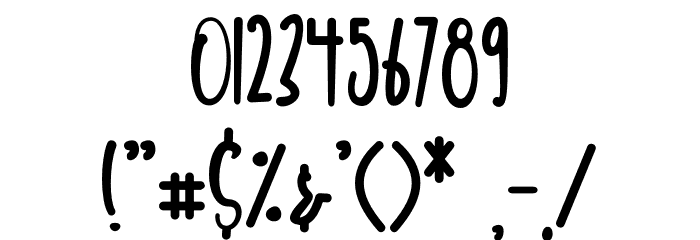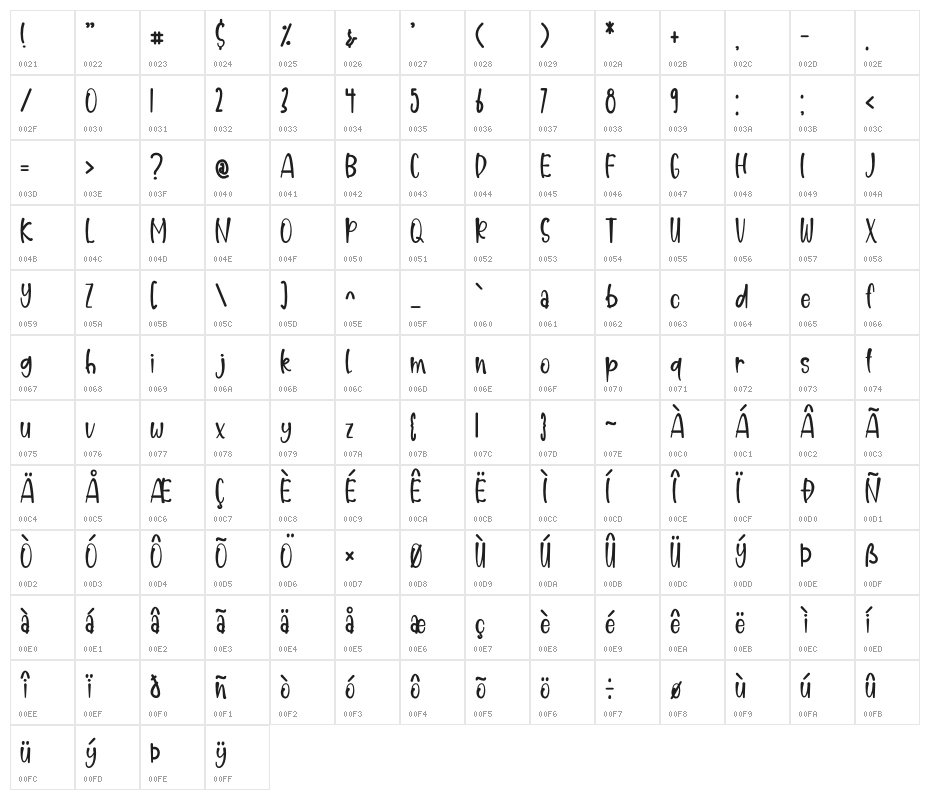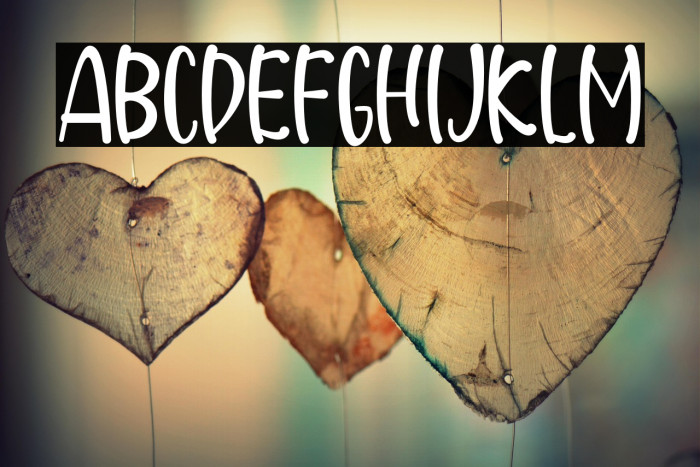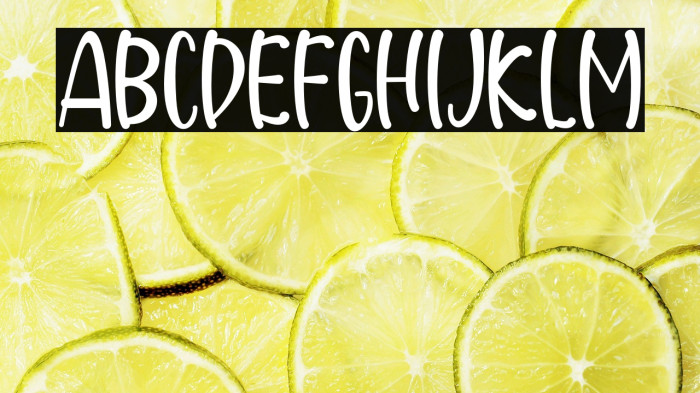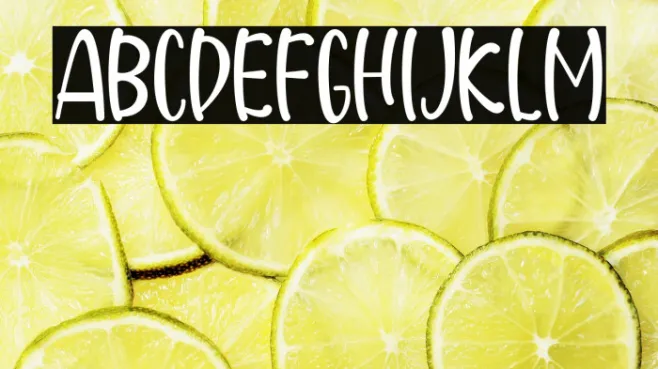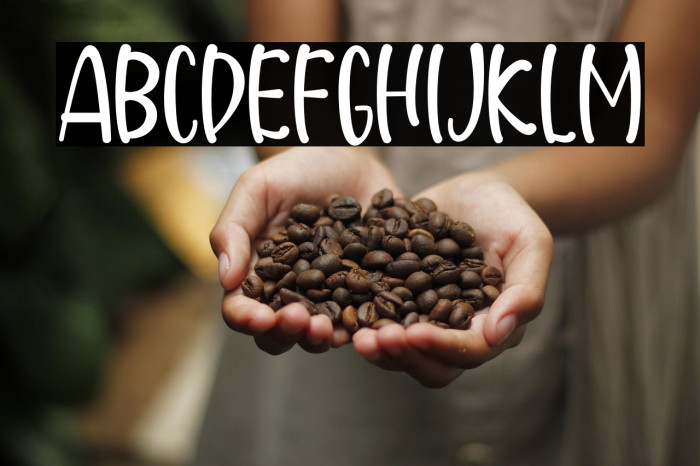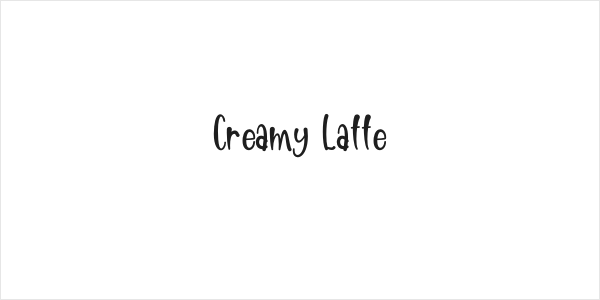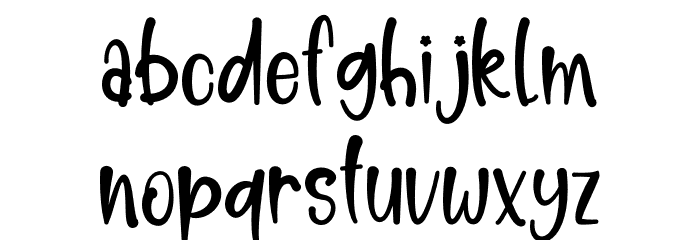
Creamy Latte Font
Creamy Latte Description
This font features a playful and casual handwritten style, characterized by its smooth curves and slightly irregular letterforms. The uppercase and lowercase letters maintain a consistent flow, giving it a friendly and approachable appearance. The numbers and special characters are designed to match the overall aesthetic, ensuring a cohesive look across all text elements. Its informal style makes it suitable for creative projects that require a personal touch. The font's legibility is maintained even at smaller sizes, making it versatile for various design applications.
| Use Case | Headlines, Logos, Social Media Graphics |
| Proposed Projects | Ideal for greeting cards, invitations, social media graphics, and branding projects that seek a personal and friendly touch. |